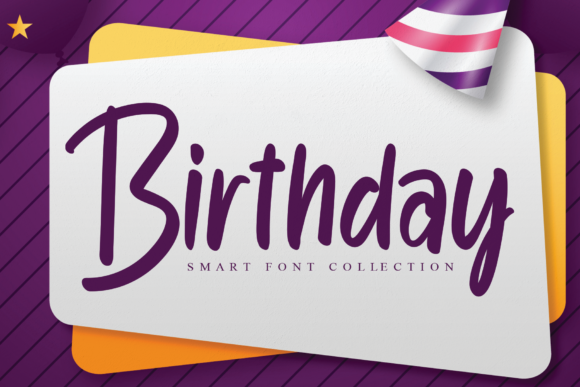
The Perfect Script for Celebrations
You know that moment when you’re brainstorming ideas for a special project, and suddenly the perfect font pops into your mind? It’s like a lightbulb moment, and you can’t wait to get started. For many designers, that moment came when they discovered the Birthday Font – a beautiful, handwritten script that’s perfect for adding a personal touch to any project.
Whether you’re creating a custom birthday invitation, a special letter to a loved one, or even a set of stationery, the Birthday Font is the perfect choice. Its versatility and charm make it a valuable addition to any designer’s toolkit, and its unique style is sure to set your projects apart from the rest.
Birthday Font Key Features
- Unique Characteristics: The font features a playful, cursive design with decorative elements, including stars, balloons, and confetti, making it perfect for birthday-themed designs.
Birthday Font Review
I recently had the chance to experiment with the Birthday Font, and here are my honest thoughts.
- The font’s playful and whimsical design is perfect for creating a celebratory atmosphere.
- The bold and vibrant colors used in the font make it stand out and add to its festive feel.
- The font’s cursive design is great for adding a personal touch to birthday invitations, cards, and other party materials.
- The font may not be suitable for formal or professional designs, as it can come across as too casual or immature.
- The font’s design may not be as versatile as some other fonts, making it less suitable for use in a wide range of projects.
- The font’s bold design may be overwhelming if used in excess, so it’s best to use it sparingly.
Overall, I think the Birthday Font is a great choice for anyone looking to add a fun and celebratory touch to their designs. While it may have some limitations, its playful design and vibrant colors make it a great option for birthday-themed projects. Just be sure to use it thoughtfully and in moderation to avoid overwhelming the design.
For a more personalized touch, use the Birthday Font in combination with other design elements, such as balloons, confetti, or colorful backgrounds.
Use the Birthday Font to create eye-catching graphics and designs for birthday invitations, party decorations, or social media posts.
Use the Birthday Font to add a celebratory touch to your presentations, reports, or documents.
Some popular use cases for the Birthday Font include:
- Birthday invitations and party decorations
- Social media posts and graphics
- Presentation titles and headings
- Document titles and headers
Remember to experiment with different font sizes, colors, and combinations